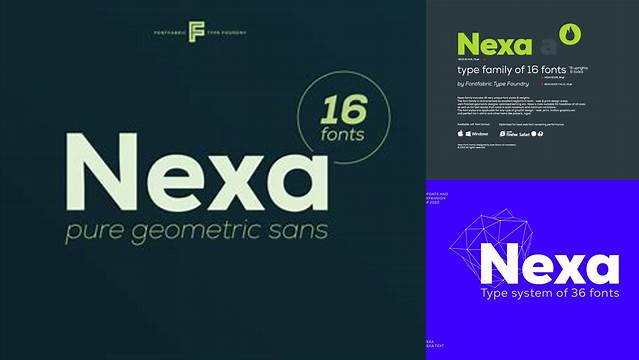
H2: Understanding the Nexa Font Family: Styles and Weights
The beauty of the Nexa Free Font lies not just in its basic design but in its versatility. It's not just one font; it’s a whole family of fonts! This means you get access to different styles and weights, allowing you to create a variety of visual effects. You've got your regular Nexa, which is a great starting point for body text. It’s clean, readable, and easy on the eyes. Then, you've got Nexa Bold, which brings a bit more emphasis to your headings and important text. Think of it as your text's way of saying, “Hey, look at me!” But it doesn't stop there. The Nexa family usually includes variations like Nexa Light (for a more delicate touch), Nexa Black (for really grabbing attention), and often even italic versions of these styles. This comprehensive range means you can build a cohesive design, using different weights of the same font to create visual hierarchy. For example, use Nexa Bold for headlines, Nexa Regular for subheadings, and Nexa Light for captions. This will guide the reader's eye through your content in a structured way. Knowing how to combine these styles is key to using the Nexa Free Font effectively. Don't go crazy and use every weight at once; that can make your design look chaotic. Instead, choose a few styles that complement each other and suit the purpose of your project. Experiment a little! Play around with the different weights to see how they look together. Try using Nexa Bold for a call to action, Nexa Regular for the main content, and Nexa Light for a subtle touch in certain areas. The more you experiment, the better you’ll become at using this font family. Also, consider the context of your design. Is it for a website, a poster, or a mobile app? Different weights and styles might work better in different contexts. The Nexa Free Font family offers a fantastic range of choices, so take advantage of them to create designs that are both visually appealing and easy to read.
H3: Nexa Regular: The Workhorse of the Font Family
Nexa Regular is like the reliable friend you can always count on. It's the backbone of the Nexa Free Font family, the go-to style for body text and general content. Its clean lines and clear letterforms make it incredibly readable, whether you're designing a website, a document, or even a sign. The beauty of Nexa Regular lies in its simplicity. It doesn't try to be flashy or overly stylized; instead, it focuses on functionality. This makes it incredibly versatile, suitable for a wide range of design applications. One of the key advantages of Nexa Regular is its excellent readability, especially at smaller sizes. This makes it perfect for paragraphs of text, where the primary goal is to convey information. The clean lines of the font allow the letters to stand apart clearly, reducing eye strain and making it easy for readers to follow along. But don't mistake simplicity for blandness. Nexa Regular still has personality. It has a modern, friendly feel that makes it approachable and inviting. It's the kind of font that can blend seamlessly into any design, allowing the content to take center stage. You can use Nexa Regular for everything from website articles and reports to brochures and presentations. Its neutral character makes it an excellent choice for any project where clarity and readability are paramount. To get the most out of Nexa Regular, consider pairing it with other weights and styles from the Nexa family. For example, you might use Nexa Bold for headings and subheadings to create visual hierarchy and draw attention to important information. Or, you could add some italic variations for emphasis. Remember, the key is to create a balanced design that is both aesthetically pleasing and easy to navigate.
H3: Nexa Bold: Making a Statement in Your Designs
If you need to make a bold statement with your text, Nexa Bold is your best friend. As part of the Nexa Free Font family, this style packs a punch, making headlines, subheadings, and key pieces of information stand out from the crowd. Nexa Bold is perfect when you want to draw the reader's eye immediately. Its thicker strokes command attention, making sure that your most important messages get noticed. This is especially useful for website headers, calls to action, and any text that you want to prioritize visually. Think of Nexa Bold as the spotlight in your design. It highlights the essential information, guiding the reader's eye and directing their attention. When used correctly, Nexa Bold can significantly improve the readability and effectiveness of your design. However, it is essential to use Nexa Bold sparingly. Overusing it can make your design look cluttered and overwhelming. The key is to strategically use it to emphasize critical information, rather than applying it to everything. One of the best ways to use Nexa Bold is to pair it with Nexa Regular. For example, use Nexa Bold for your headings and Nexa Regular for the body text. This will create a clear visual hierarchy, making it easy for your readers to understand the structure of your content. Remember, the goal is to create a balanced design that's both visually appealing and easy to navigate. Beyond headings and subheadings, Nexa Bold can also be used for short, impactful phrases or key words that you want to emphasize. Use it to highlight a special offer, a key benefit, or any other crucial piece of information that you want to draw attention to. The Nexa Free Font gives you the freedom to experiment, so don't be afraid to play around with Nexa Bold to see how it works best in your designs. But always remember: less is often more. Strategic use is key to harnessing the power of Nexa Bold.
H3: Nexa Light: For a Delicate and Subtle Touch
In contrast to Nexa Bold, Nexa Light offers a more delicate and subtle touch to your designs. As a member of the Nexa Free Font family, it provides a lighter weight option that's perfect for a variety of applications where a more refined aesthetic is desired. Nexa Light is characterized by its thin strokes and airy feel, creating a sense of elegance and sophistication. It's ideal for situations where you want text to blend seamlessly into the background or add a touch of finesse without overwhelming the overall design. This font style is a great choice when you want to create a modern, minimalist look. It can be particularly effective in website designs, where it can enhance the user experience by creating a sense of spaciousness and simplicity. Use Nexa Light for captions, small text elements, or supporting content that doesn't need to grab immediate attention. It’s perfect for adding a touch of elegance to your website's navigation, creating a clean and uncluttered feel. Nexa Light is also great for print design, such as brochures and magazines. It can be used for footnotes, annotations, or any text that needs to be legible but doesn't need to be emphasized. It is essential to use it strategically. Because it's light, it can sometimes be harder to read at smaller sizes, so make sure to consider your audience and the context of your design. One effective way to use Nexa Light is to pair it with a bolder weight, like Nexa Bold or Nexa Regular. This creates a visual hierarchy that guides the reader's eye and enhances the overall readability of your design. Experiment with different combinations to see what works best for your project. Remember, the goal is to create a harmonious and visually appealing design that communicates your message effectively. The Nexa Free Font provides a wide range of options, and understanding how to utilize Nexa Light is a valuable skill for any designer.